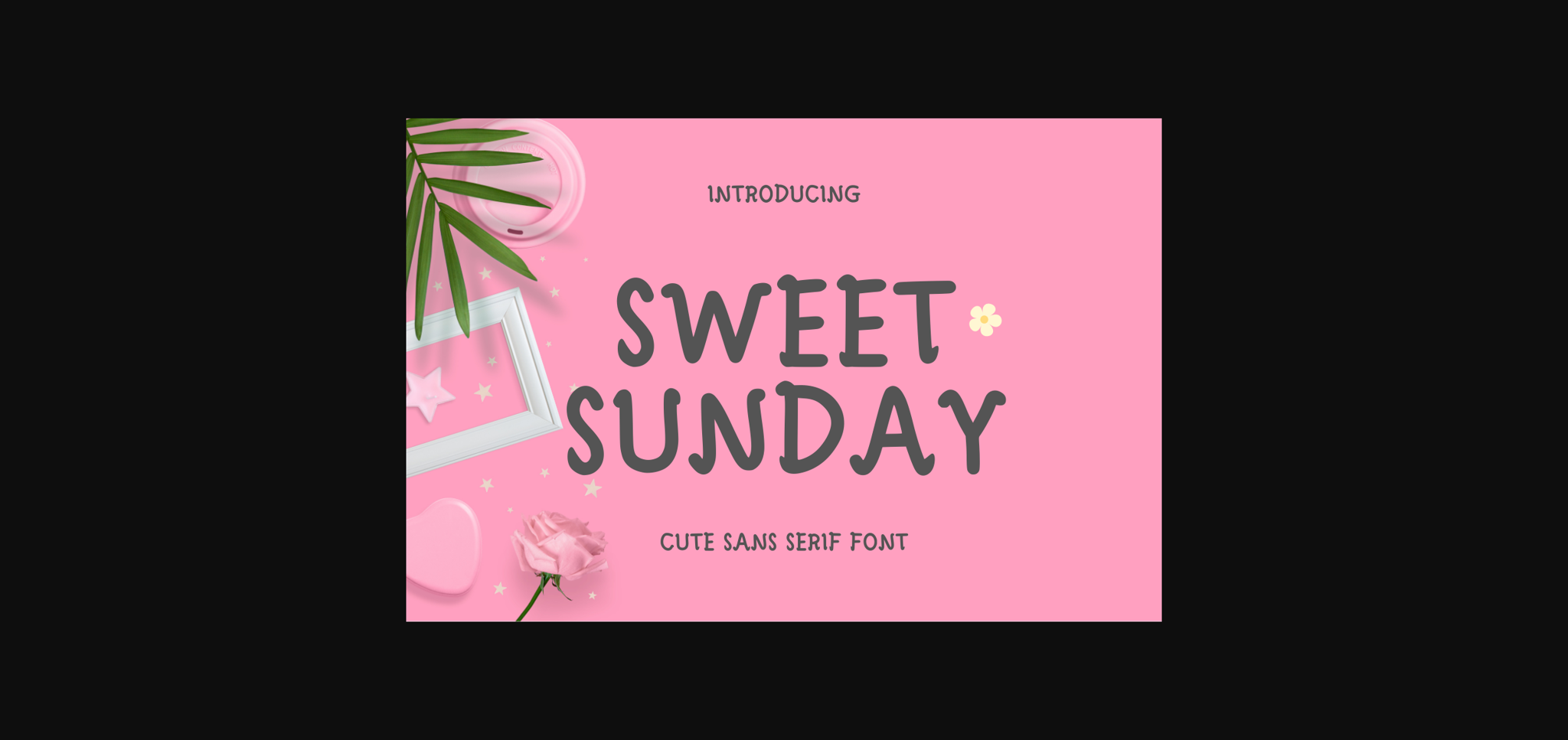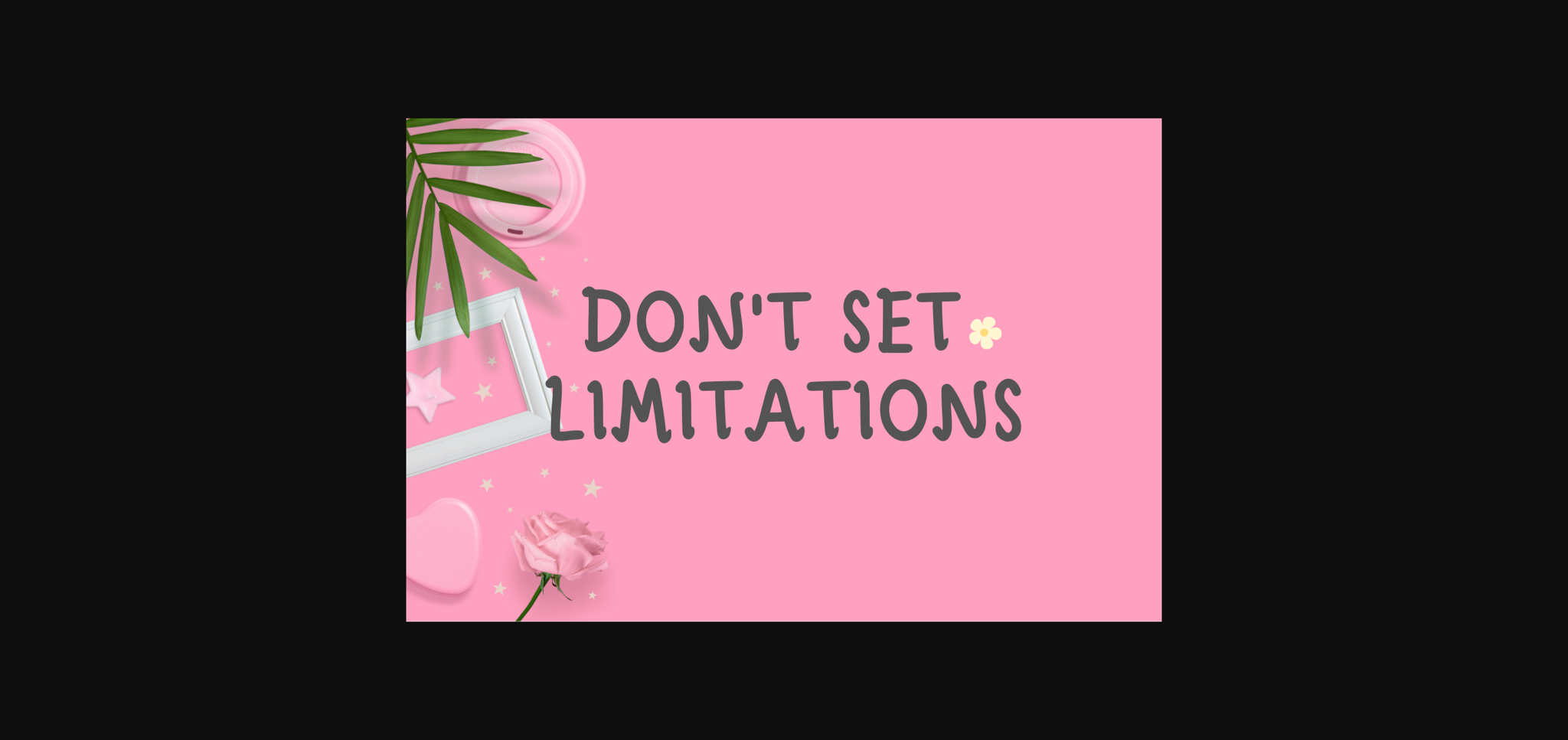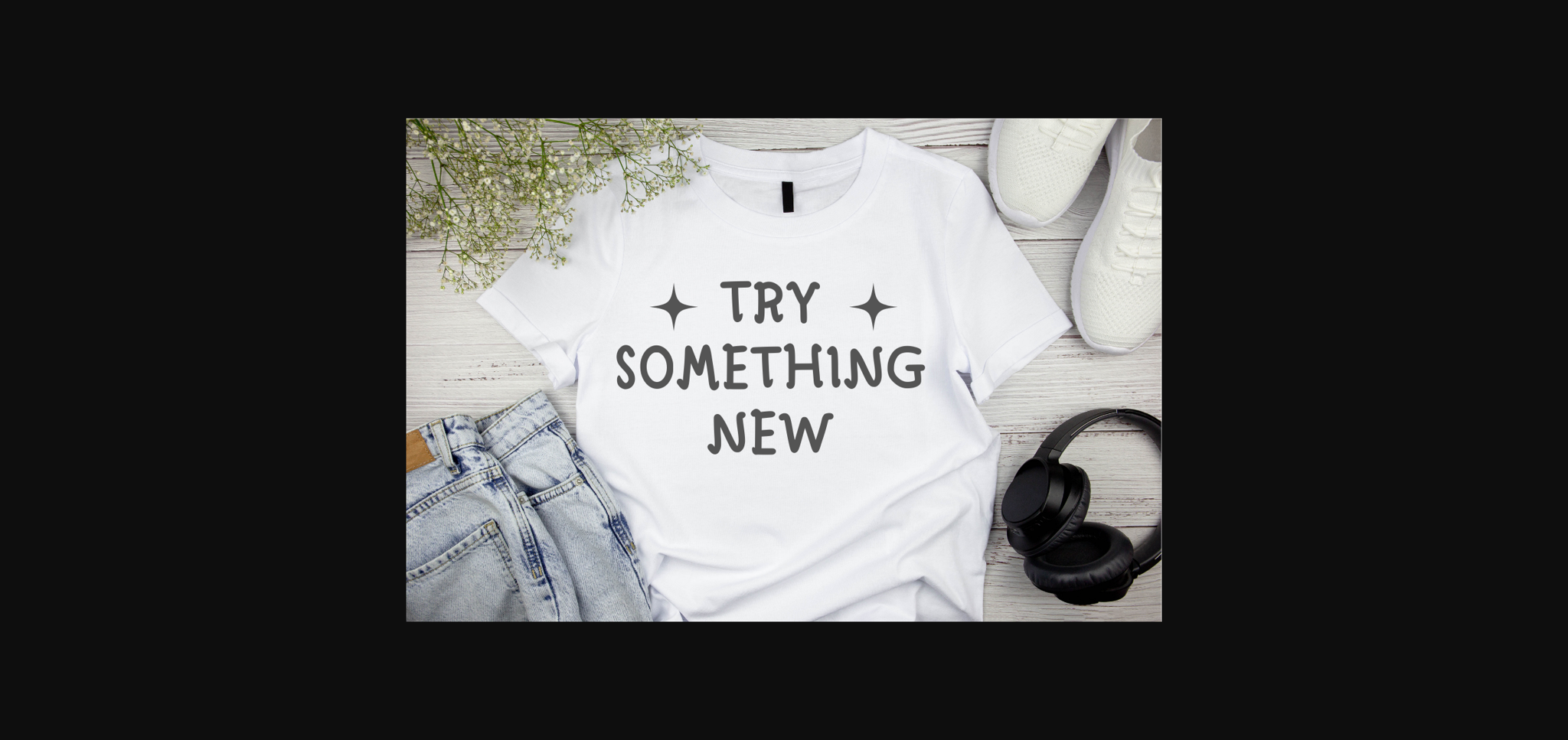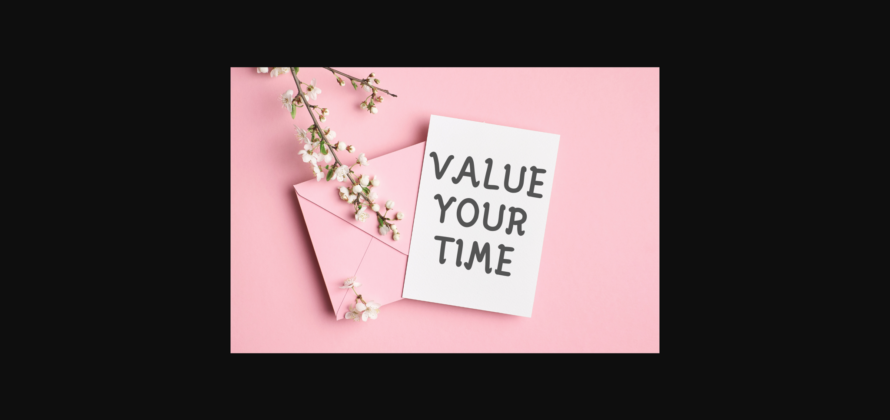
Sweet Sunday Font
About Sweet Sunday Font
Sweet Sunday is a quirky sans-serif font that infuses designs with playful eccentricity. Its unconventional letterforms and lively strokes create a distinctive, offbeat aesthetic. Ideal for projects that celebrate creativity and individuality, Sweet Sunday adds a touch of whimsy and character to your designs, making them uniquely memorable.